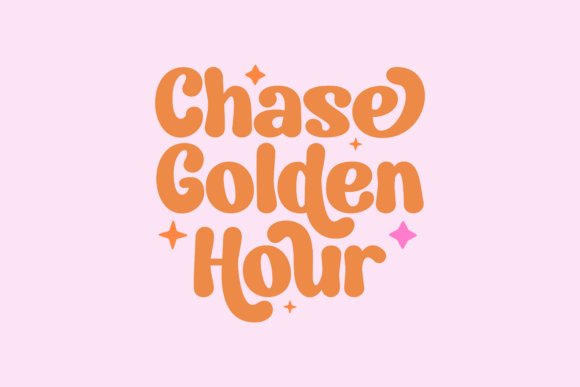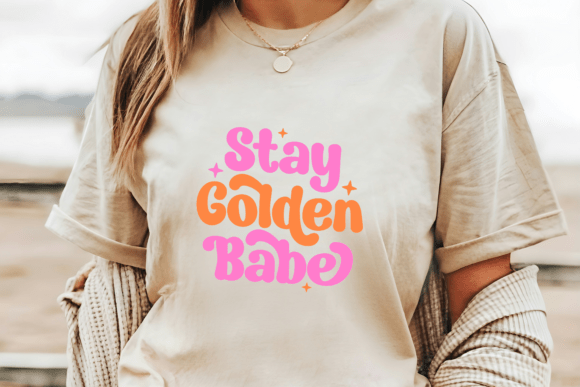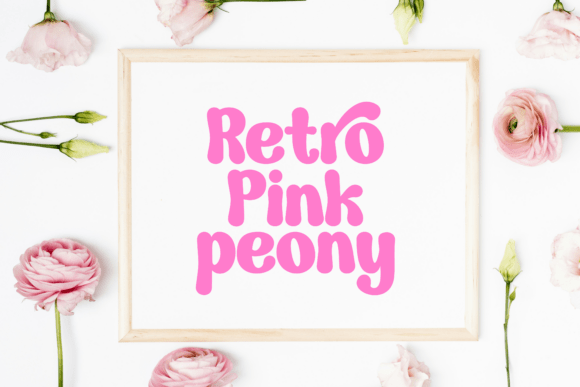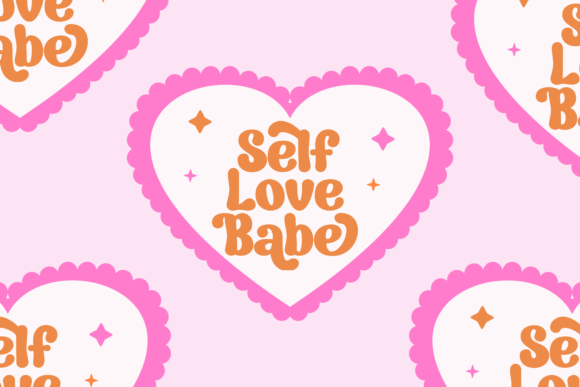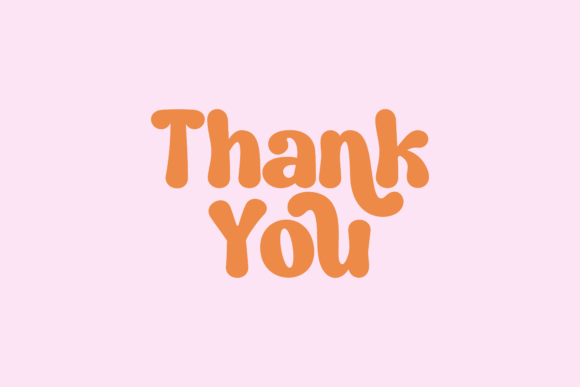
Introduction to Malibu Bright Font
Introducing Malibu Bright – an adorable hand-drawn, retro-inspired typeface boasting an array of alternative features.
This playful script is your go-to for bringing a touch of whimsy to your creative projects Whether you’re spicing up your t-shirt designs, adding charm to your stickers, or lending an artsy flair to your quotes, Malibu Bright delivers.
Key Features of Malibu Bright Font
Why Choose Malibu Bright Font?
Malibu Bright Font offers exceptional quality and versatility, making it a valuable addition to your design toolkit. Whether you’re creating for personal projects or commercial use, Malibu Bright Font delivers professional results.